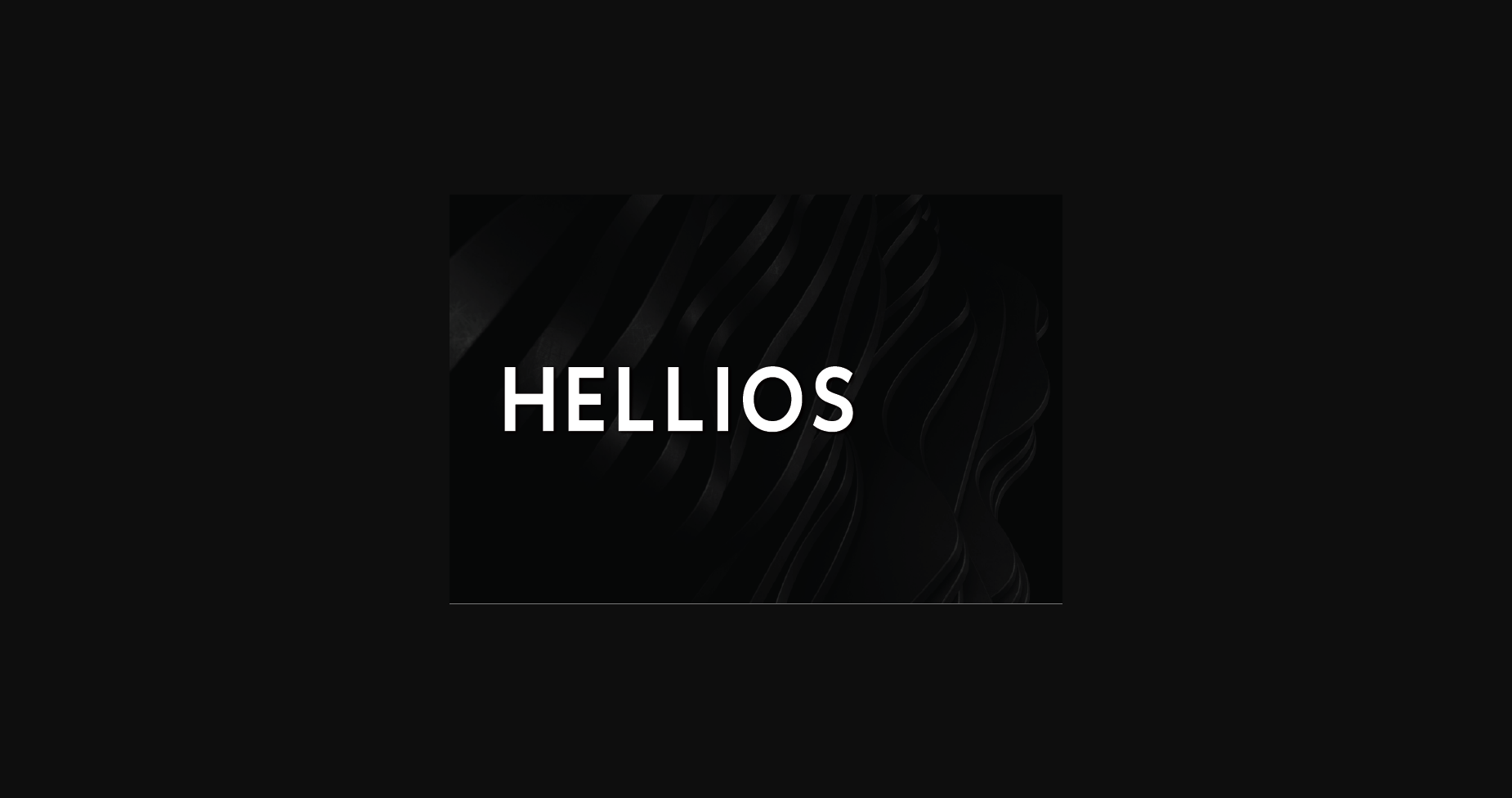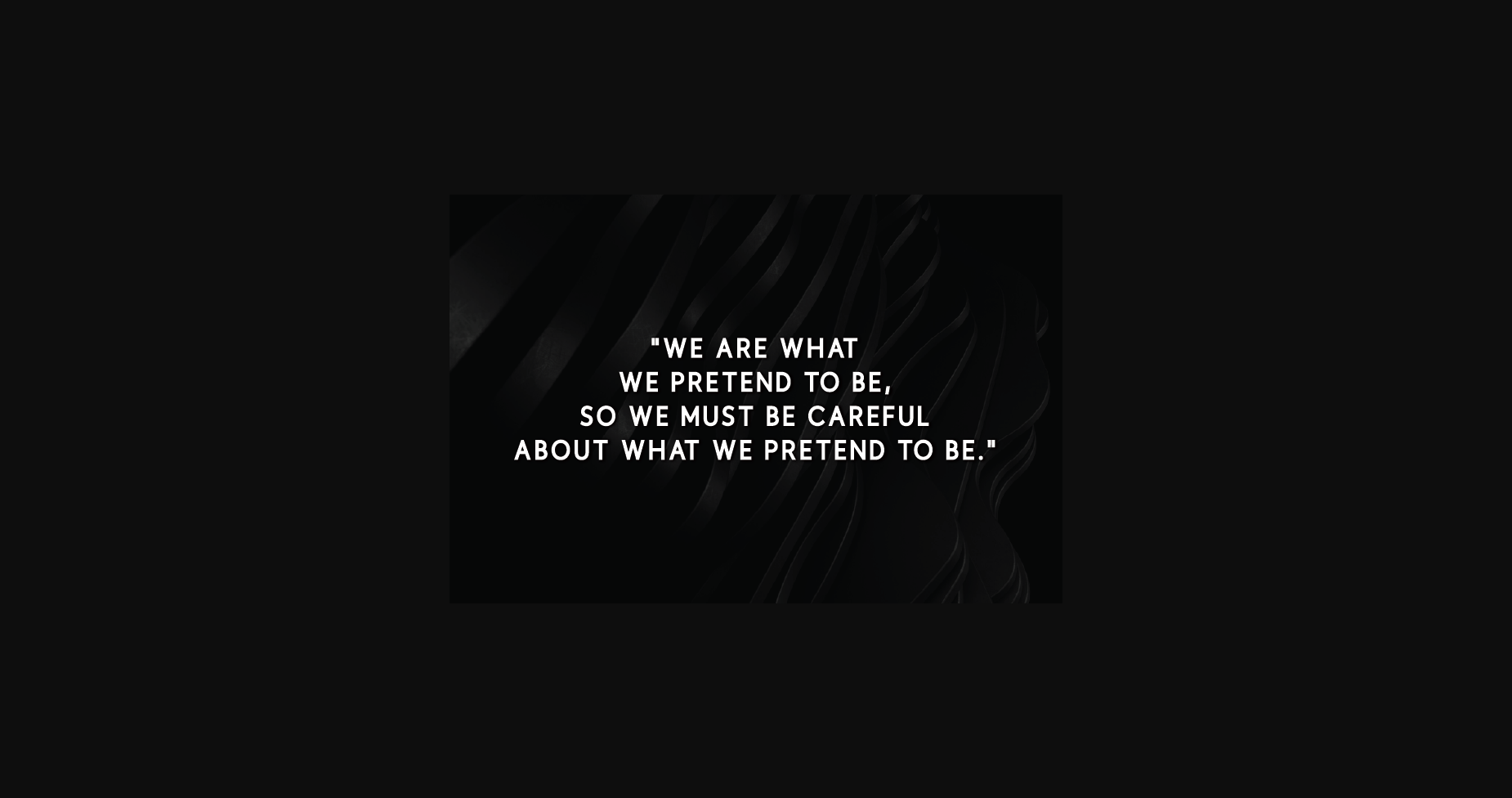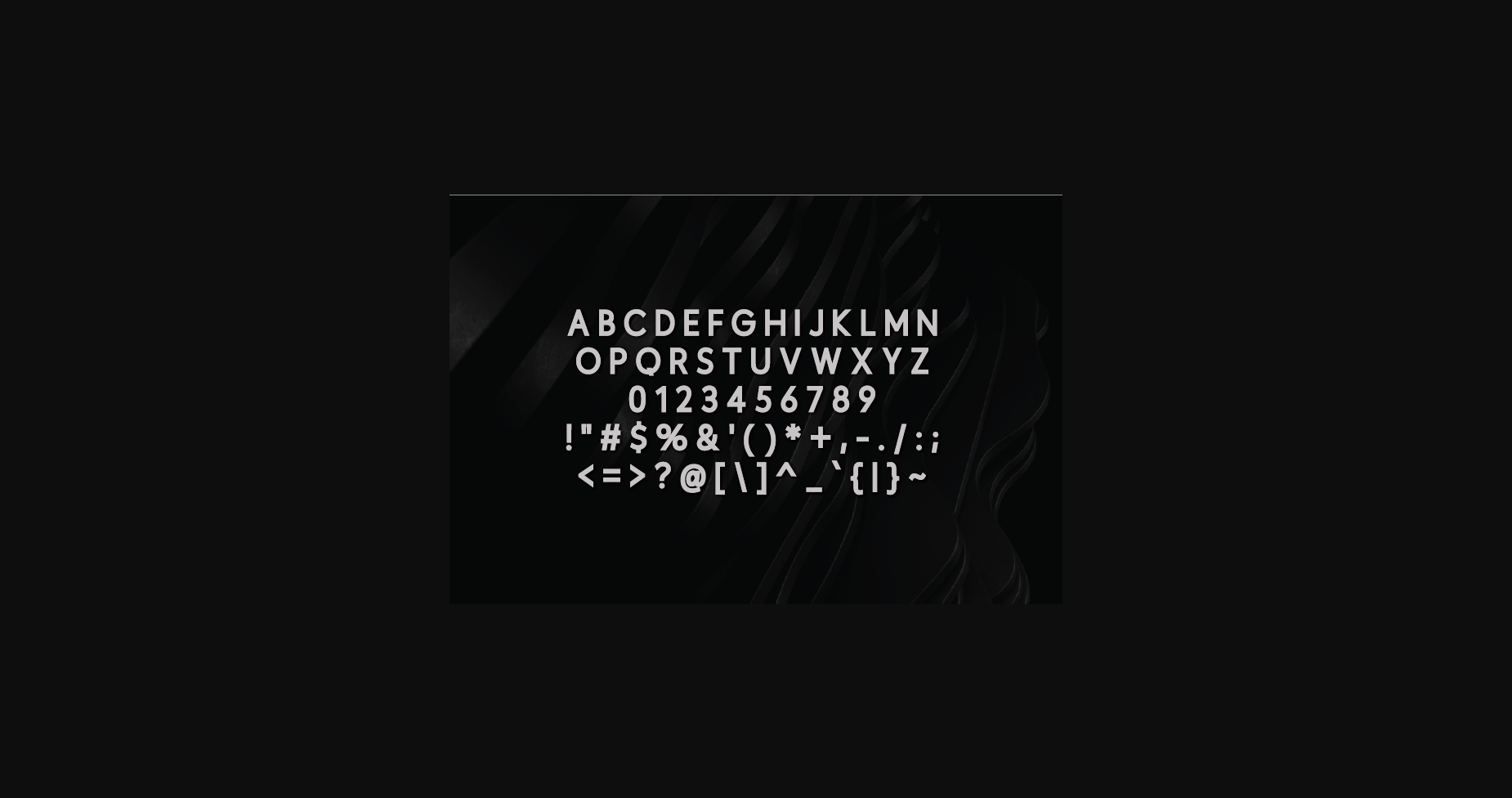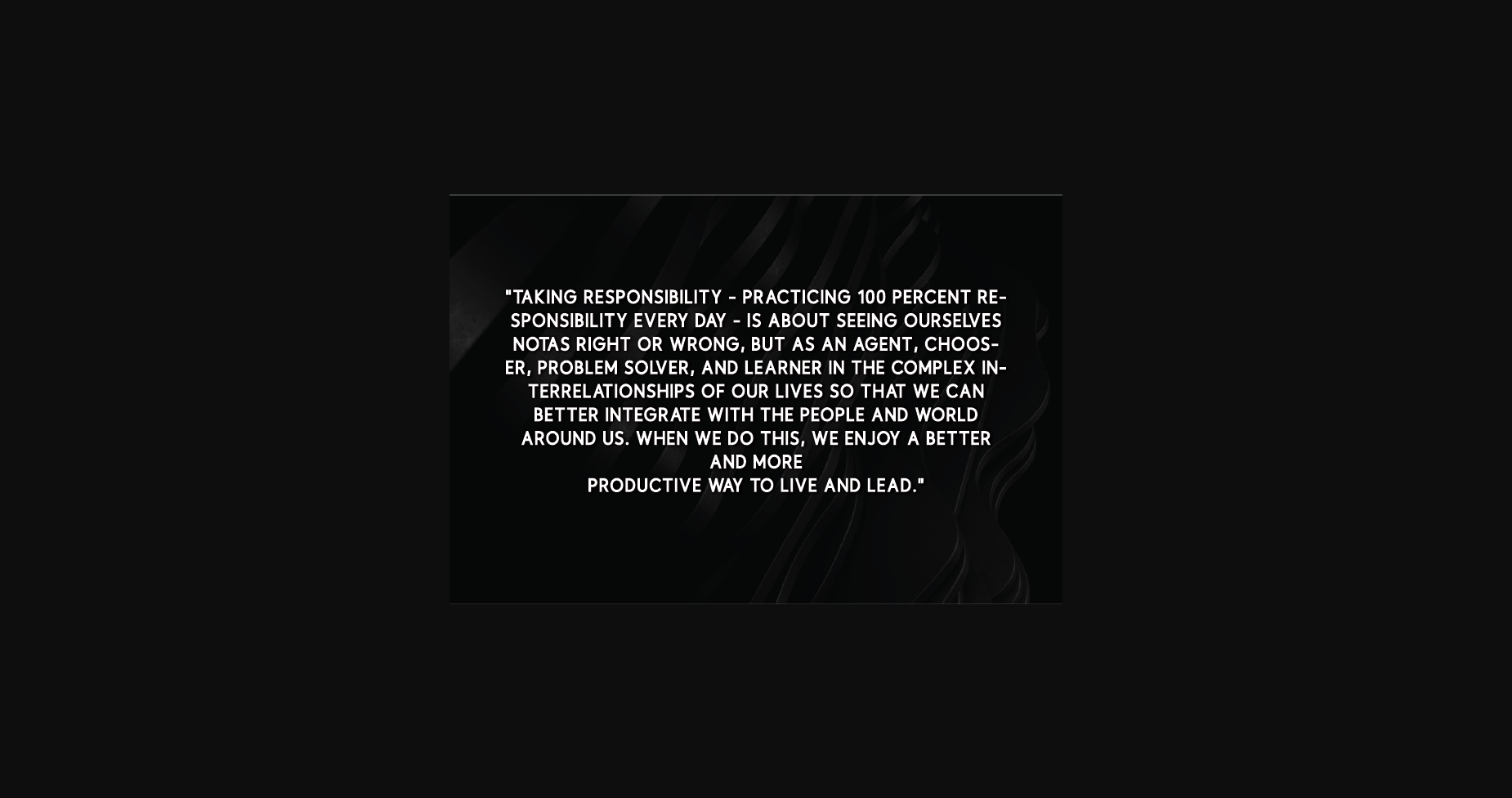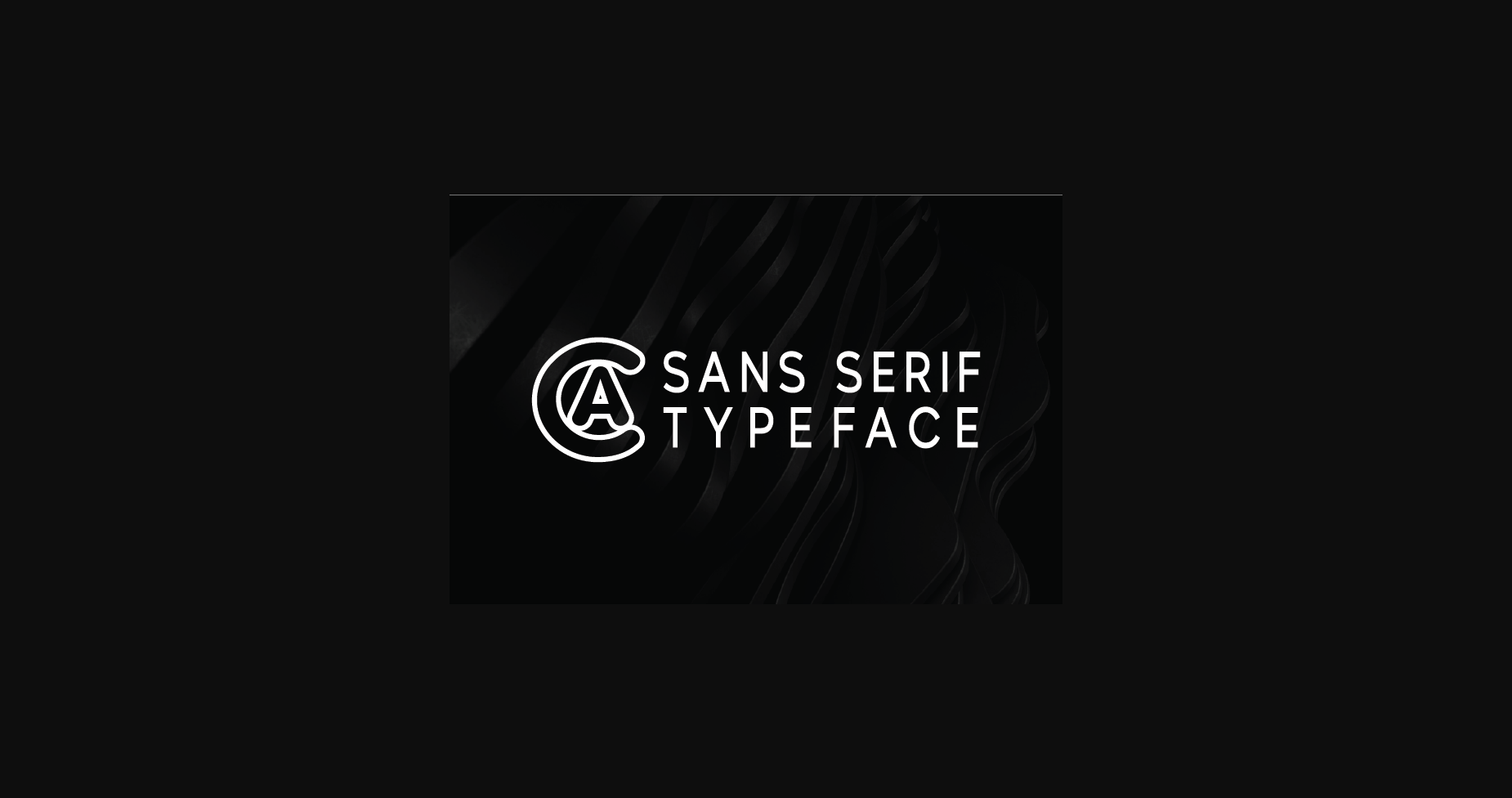
Hellios Font
About Hellios Font
Hellios is a modern and classy sans serif typeface. This extremely versatile font isperfect for logos, weddings, invitations, quotes, advertisements, print, magazines, and more!